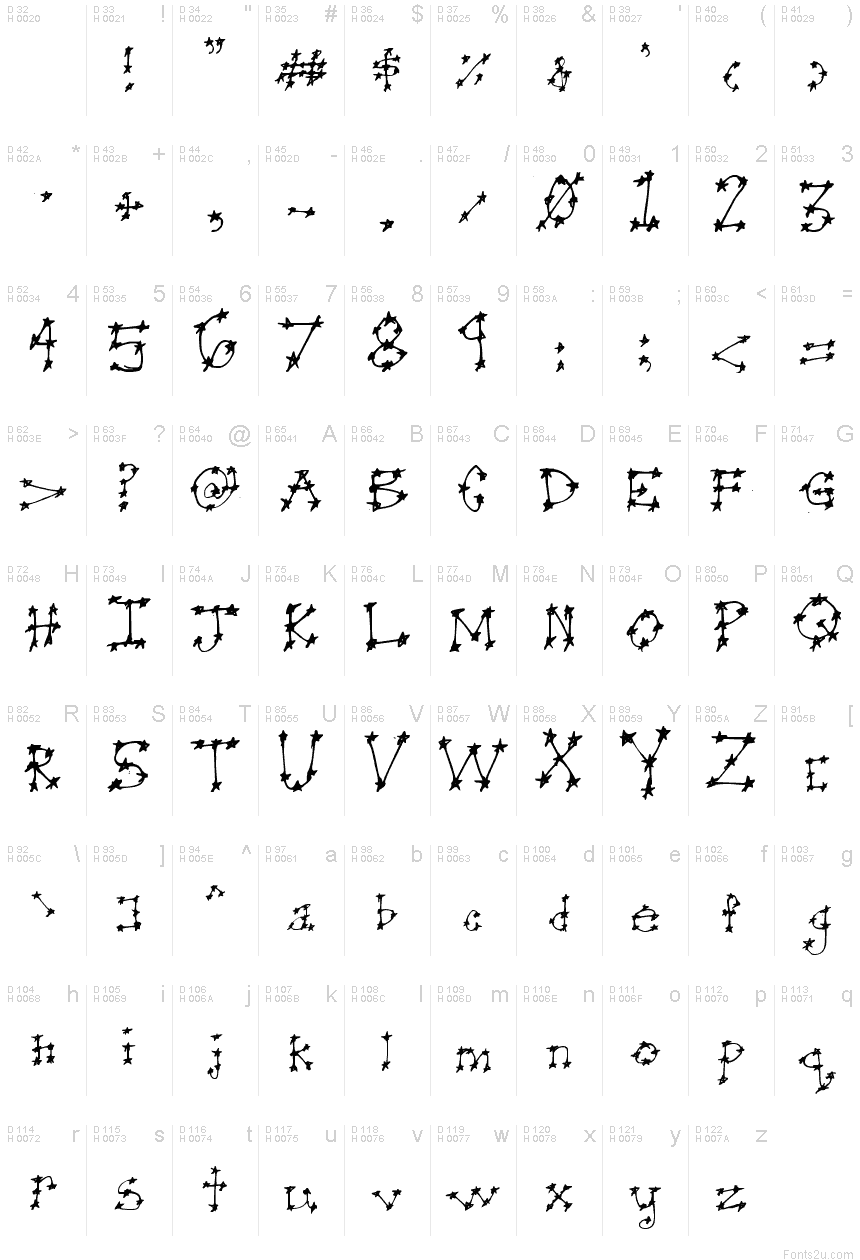
Starry-Eyed Teen Crush Regular
A full alphabet, numbers, and most punctuation, suitable for passing notes in class (considering, of course, you have a laptop).